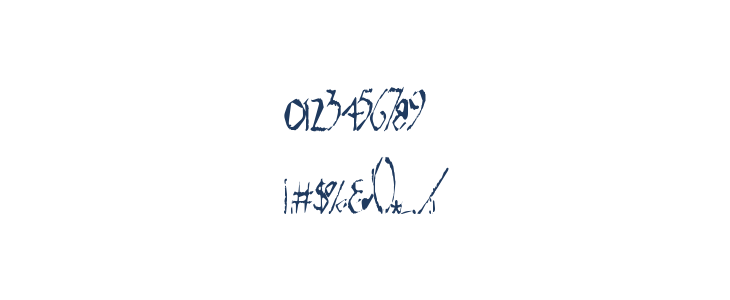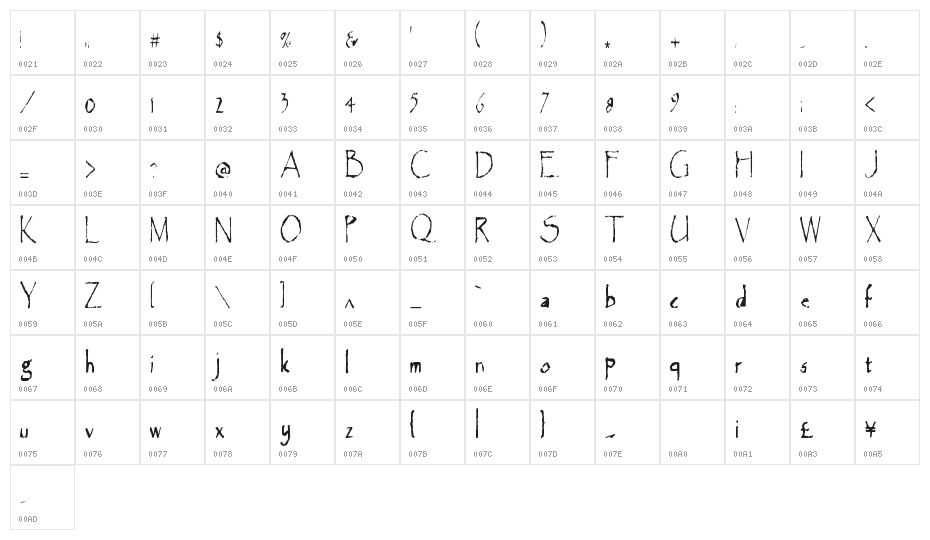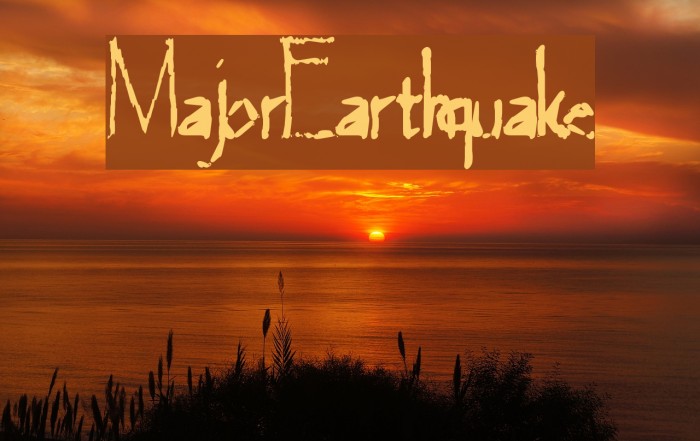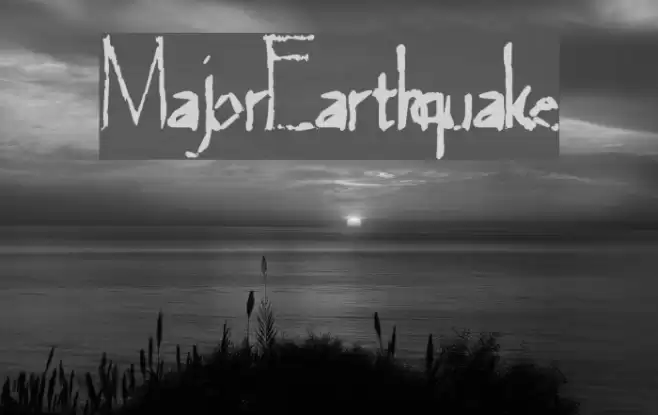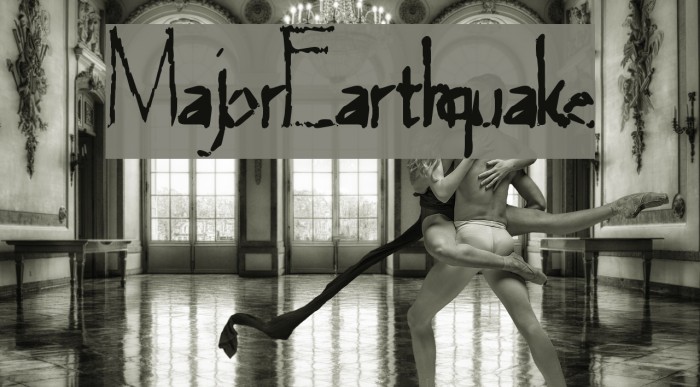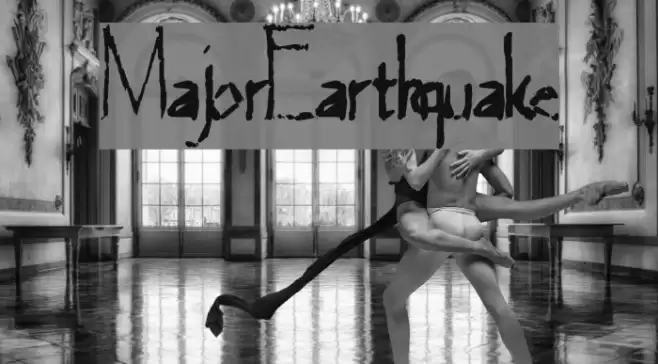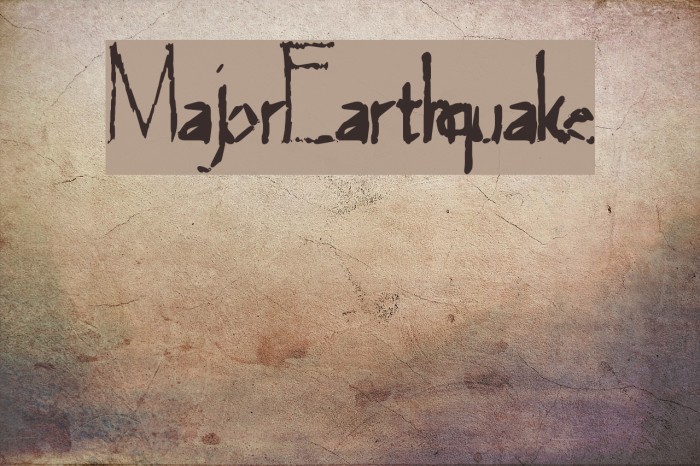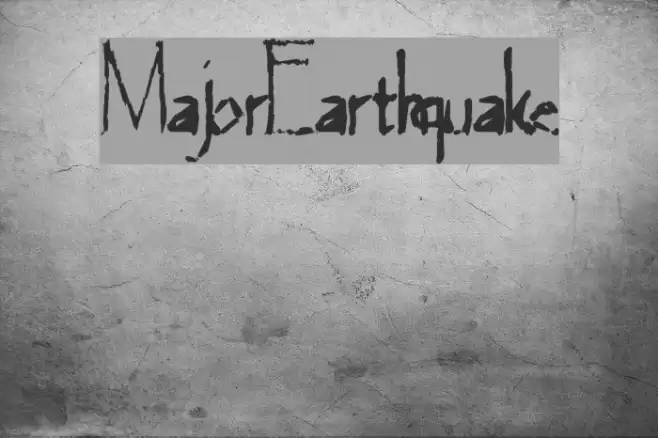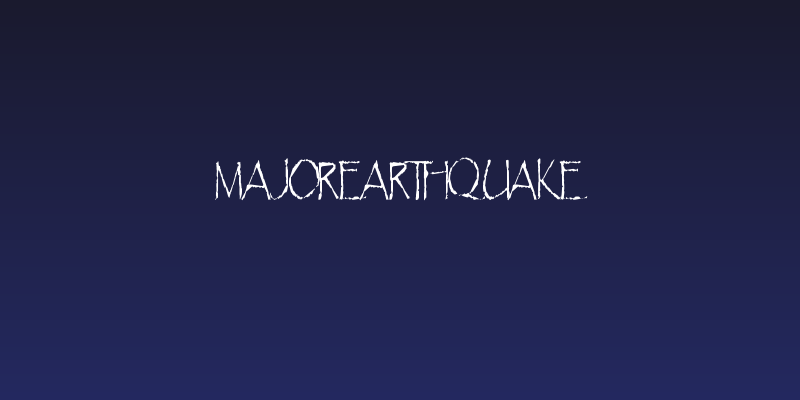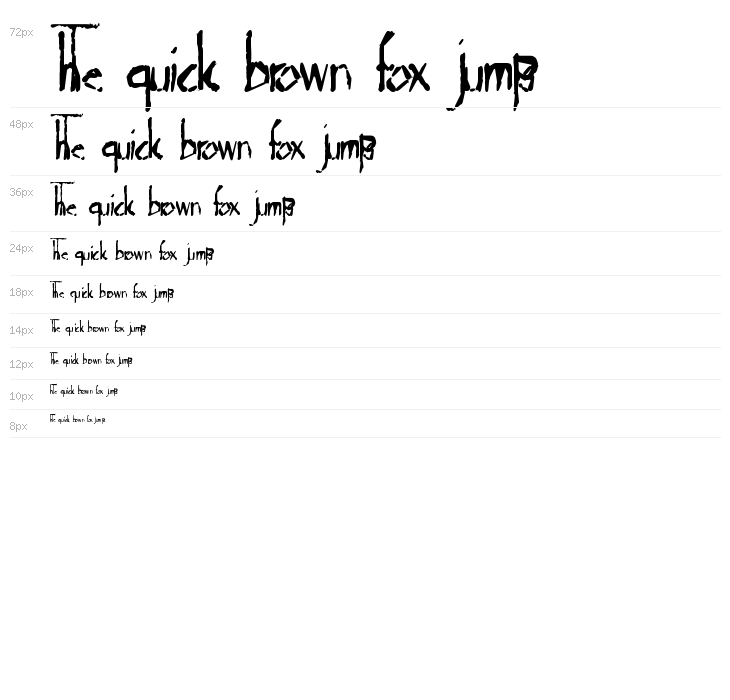
MajorEarthquake Font
MajorEarthquake Description
This font features a rugged, distressed appearance, reminiscent of hand-drawn or weathered text. The characters are irregular and jagged, giving an impression of movement or instability. The uppercase letters are tall and narrow, while the lowercase letters maintain a consistent style with slightly more rounded forms. Numbers and special characters follow the same distressed aesthetic, adding to the overall chaotic yet artistic feel. The font's unique style makes it stand out, perfect for projects that require a bold, unconventional look.
| Proposed Projects | Ideal for artistic projects, album covers, posters, or any design that seeks to convey a sense of chaos or creativity. |